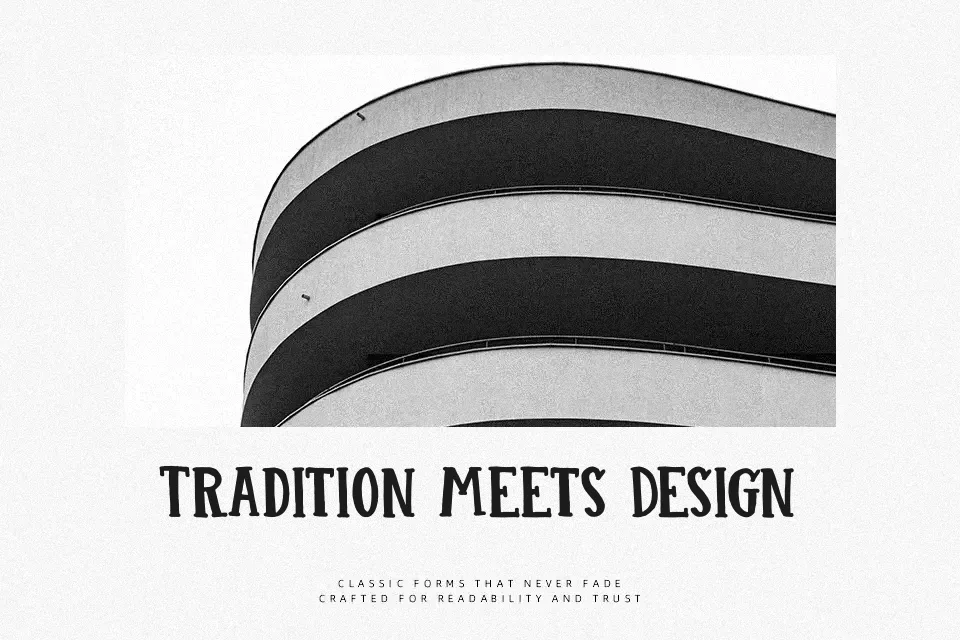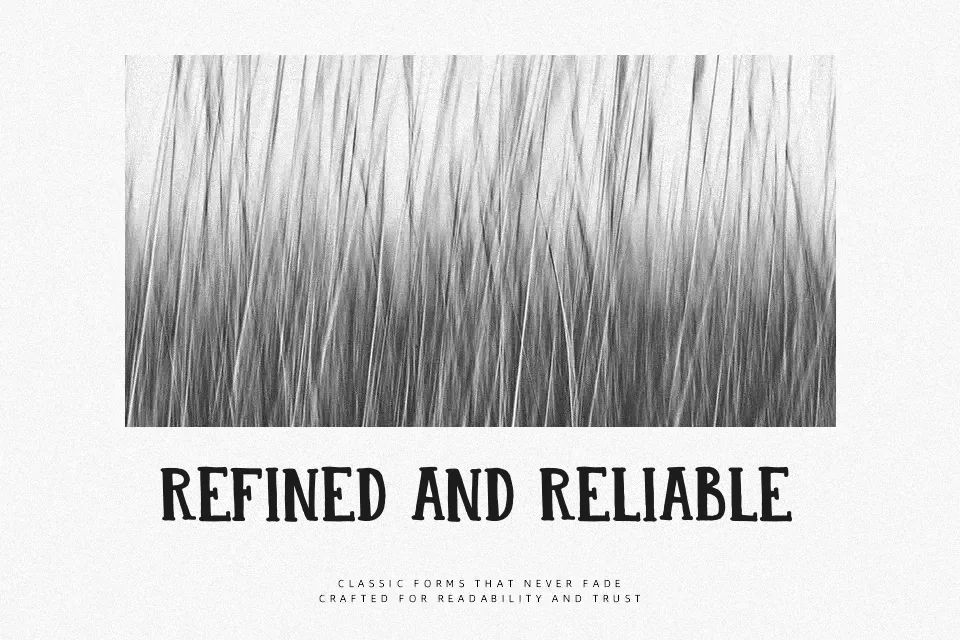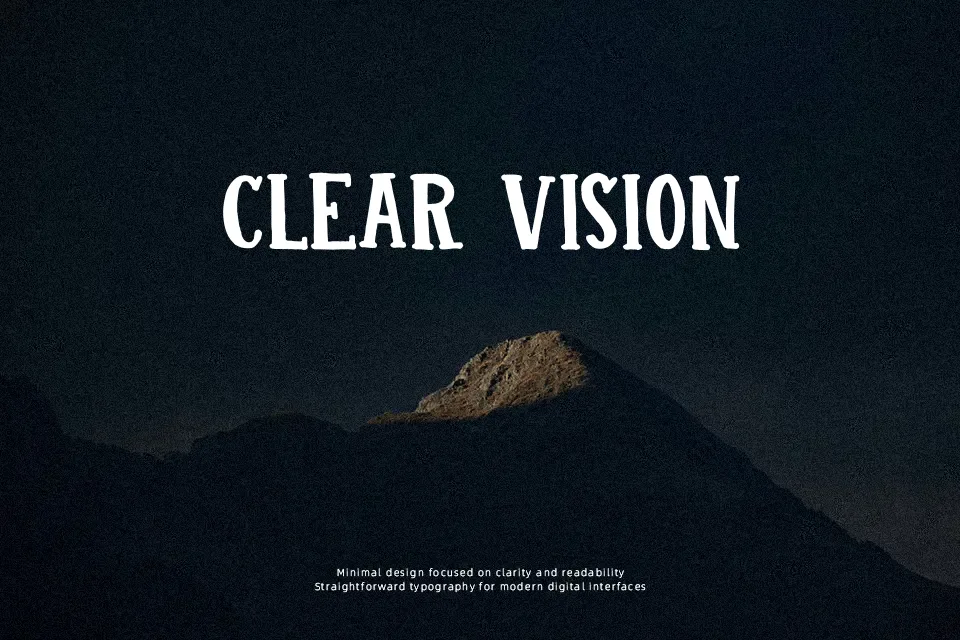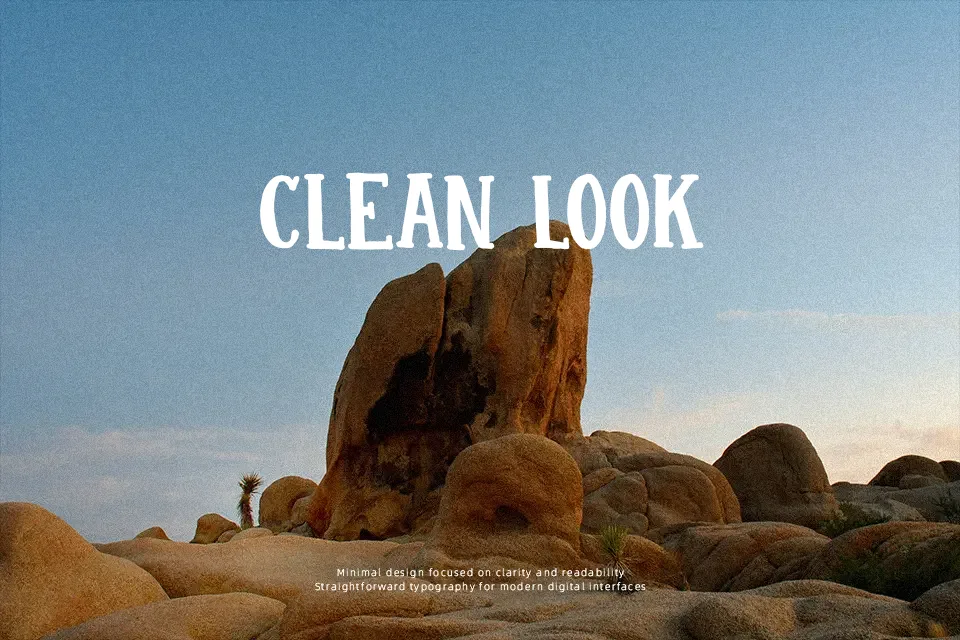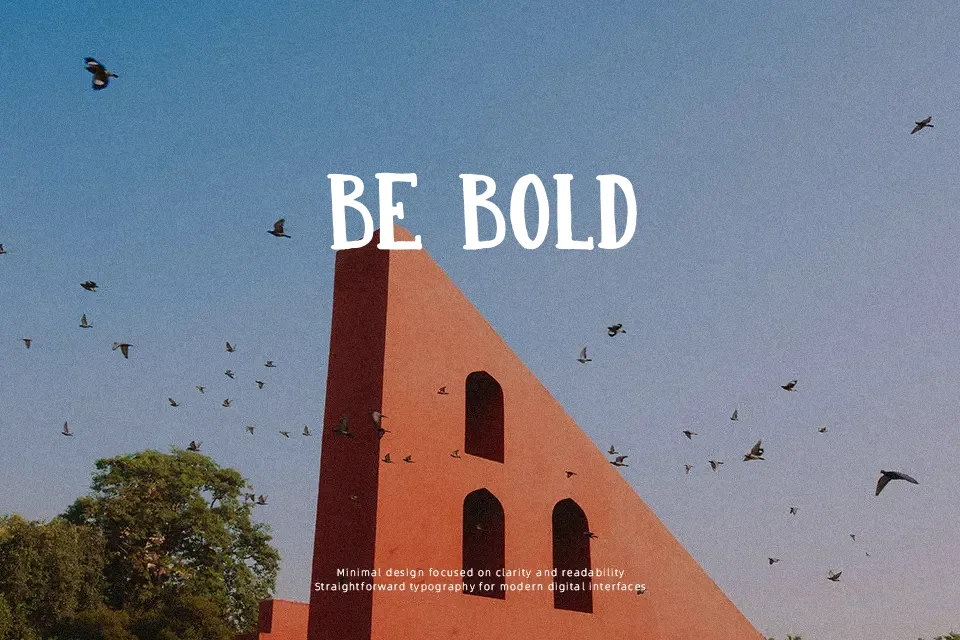
DK Colporteur Font
Designed by Hanoded
DK Colporteur has a tall, condensed serif structure with uneven stroke energy, narrow spacing, and quirky letter shapes that give it a slightly hand-drawn print look. It feels decorative rather than formal, with enough vintage flavor to suggest old book covers, market posters, or packaging for handmade goods. The heavier cuts shown in the family make headlines feel louder, while the overall silhouette stays compact. It works best when you want display text to carry personality without turning overly ornate. For long reading passages, polished corporate branding, or dense mobile layouts, it starts to feel too stylized and a bit tight.
Perfect for branding, headline, and packaging, with a artistic and condensed style.